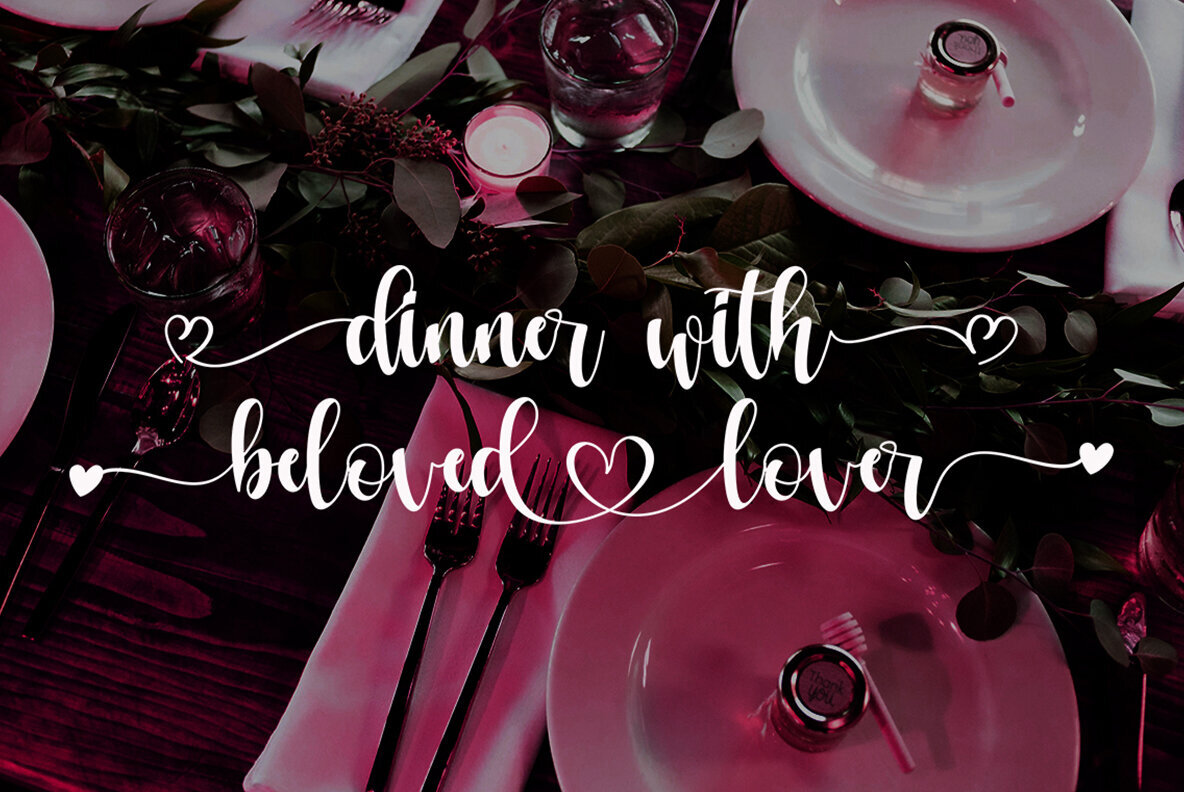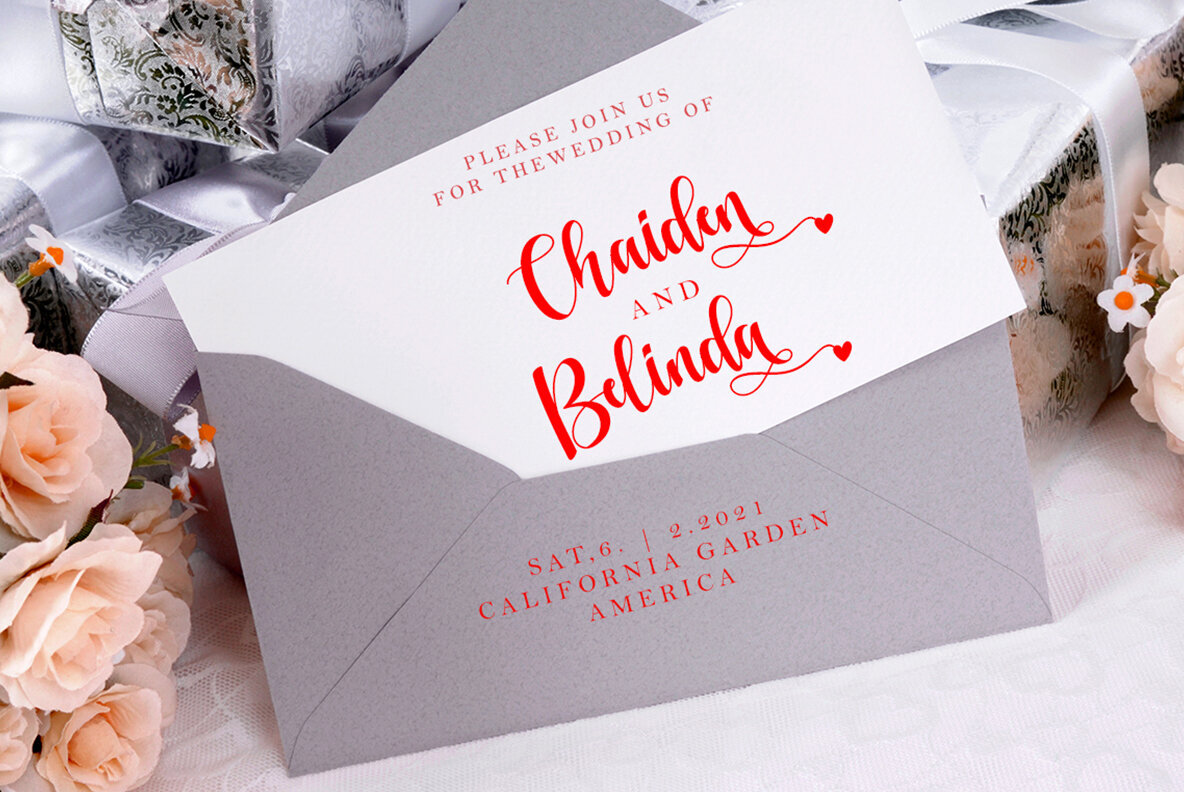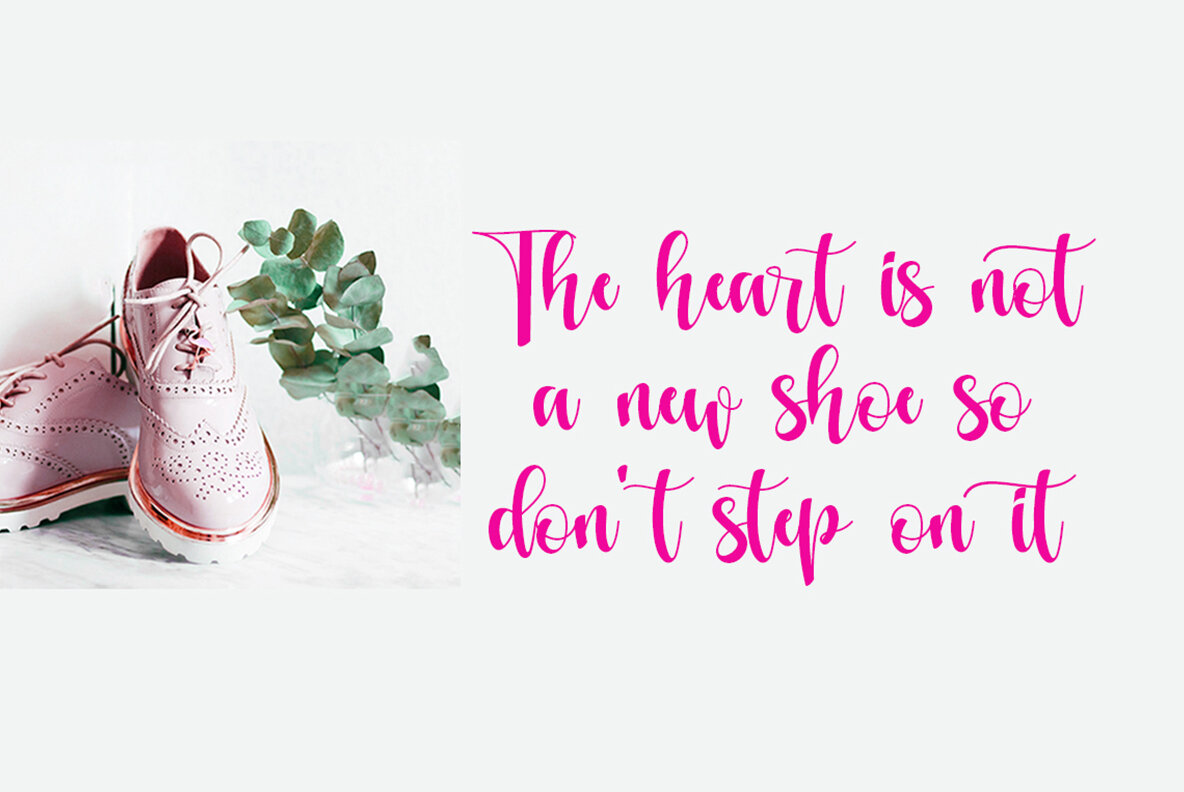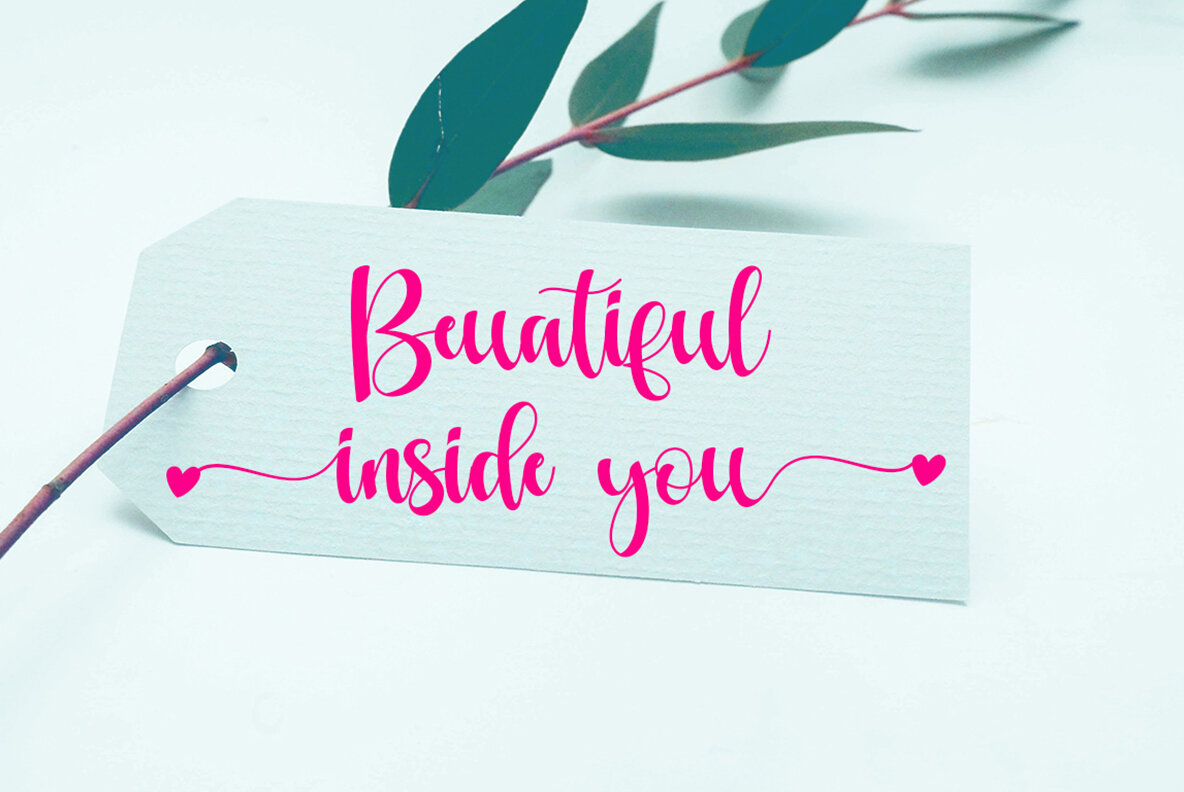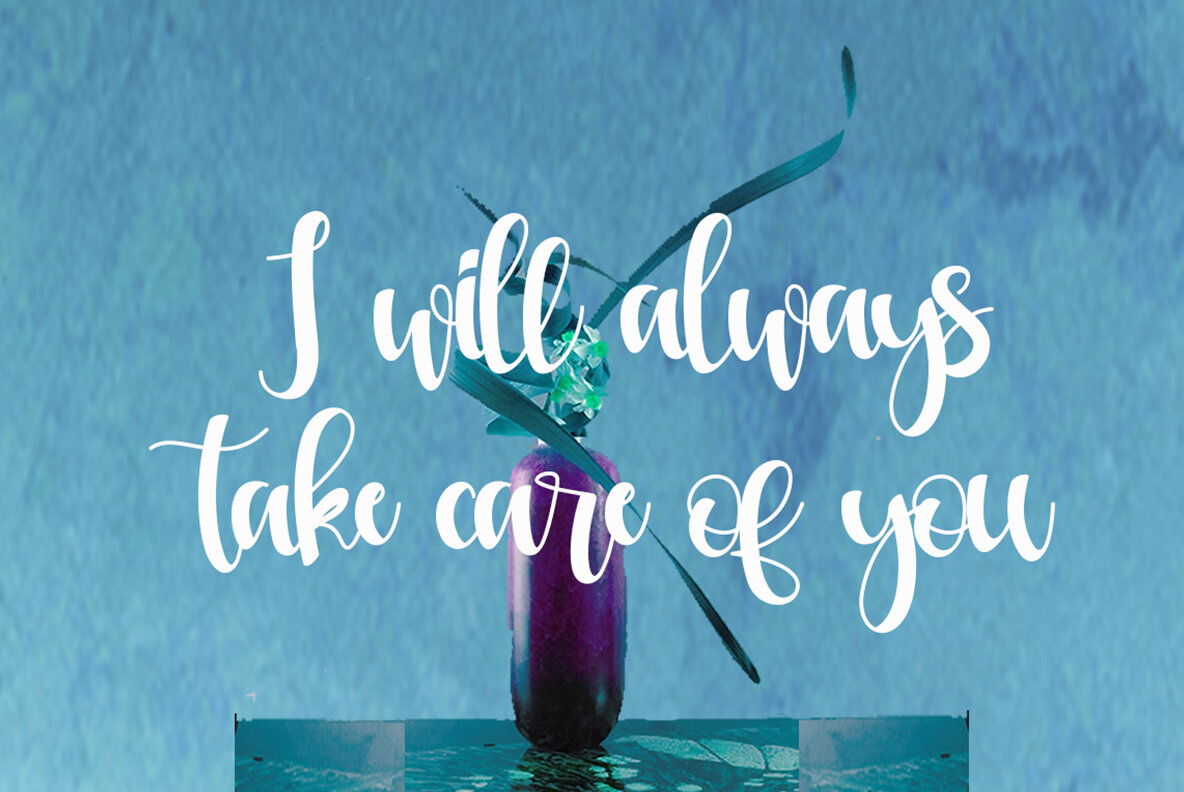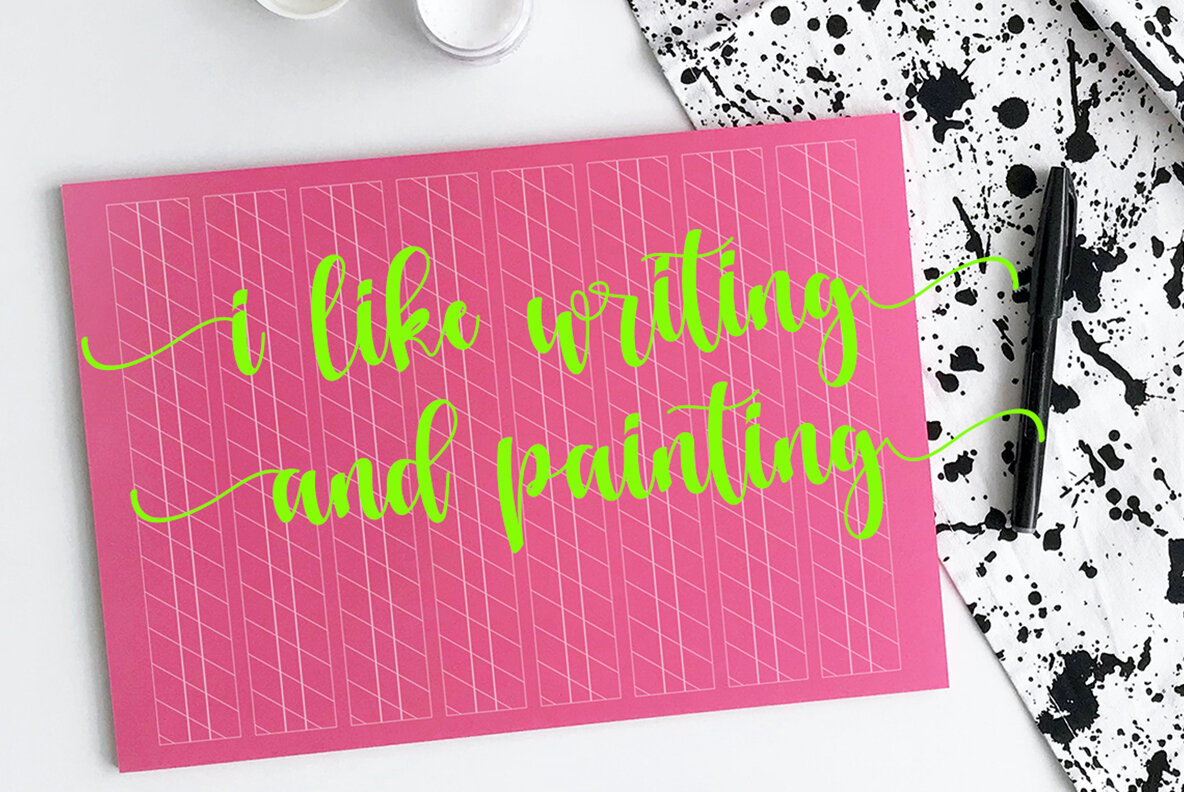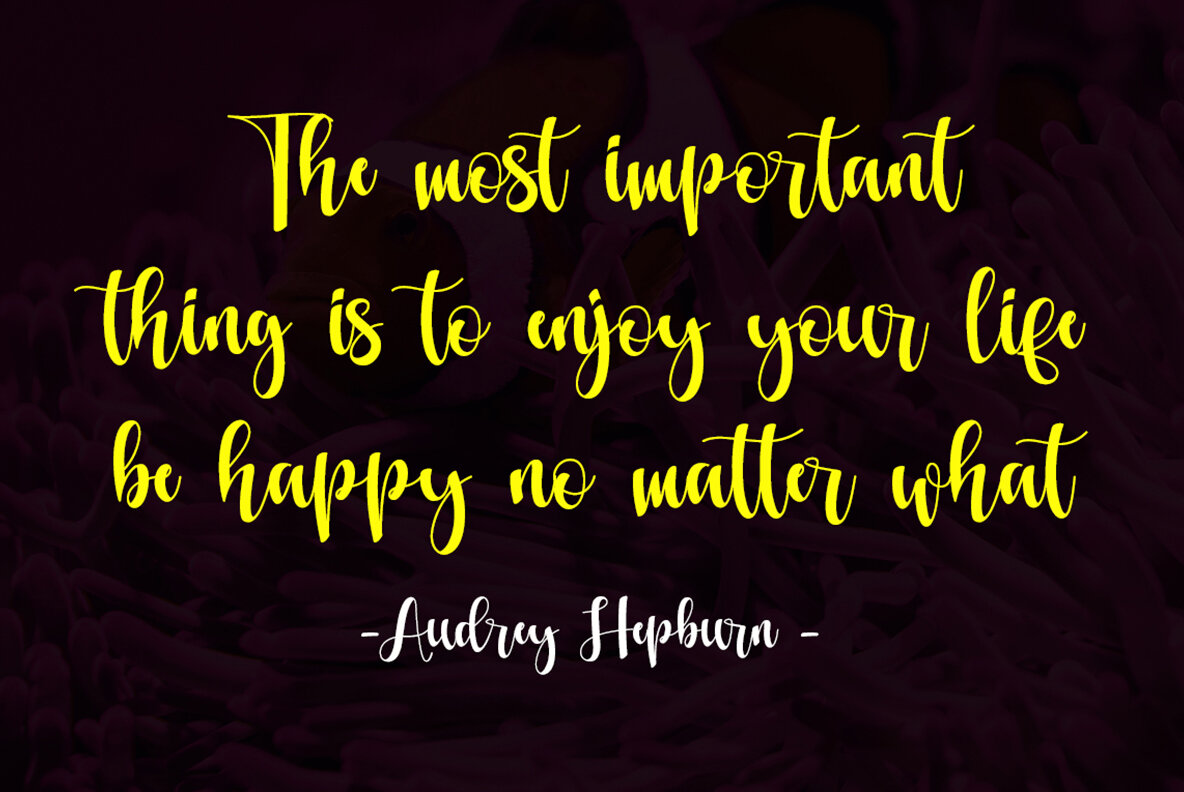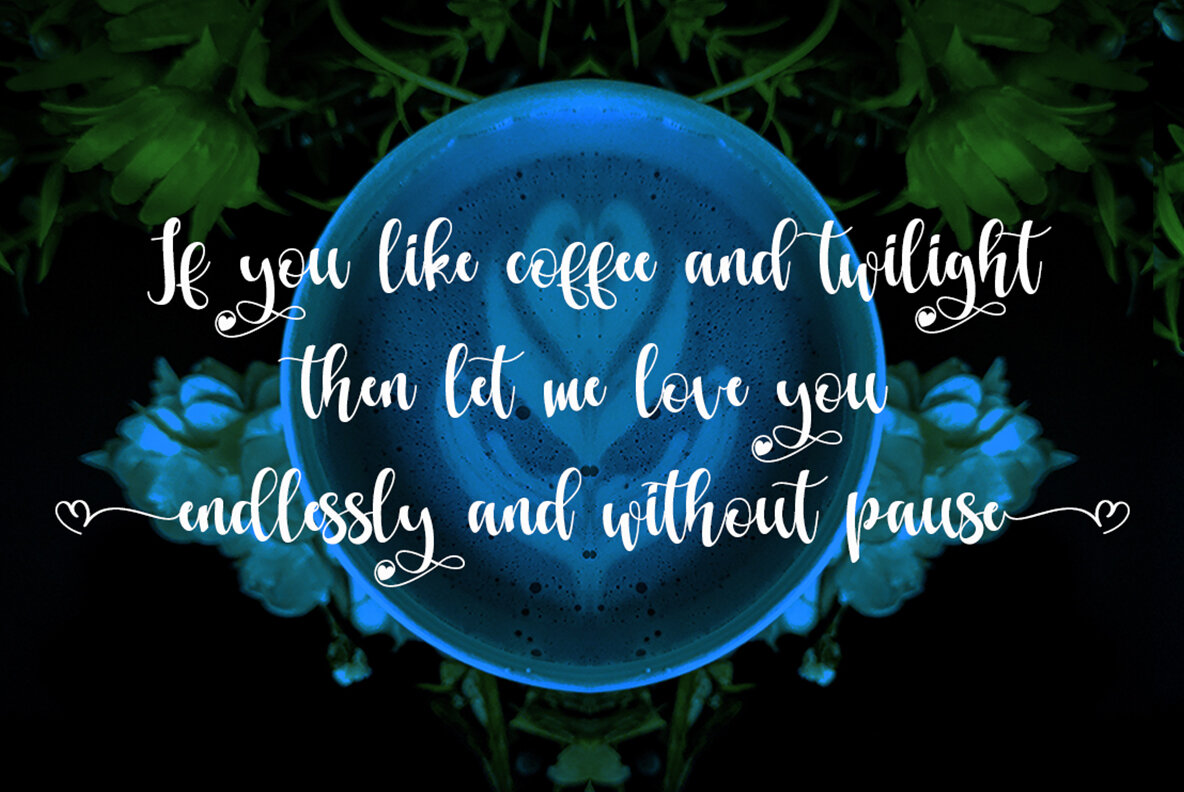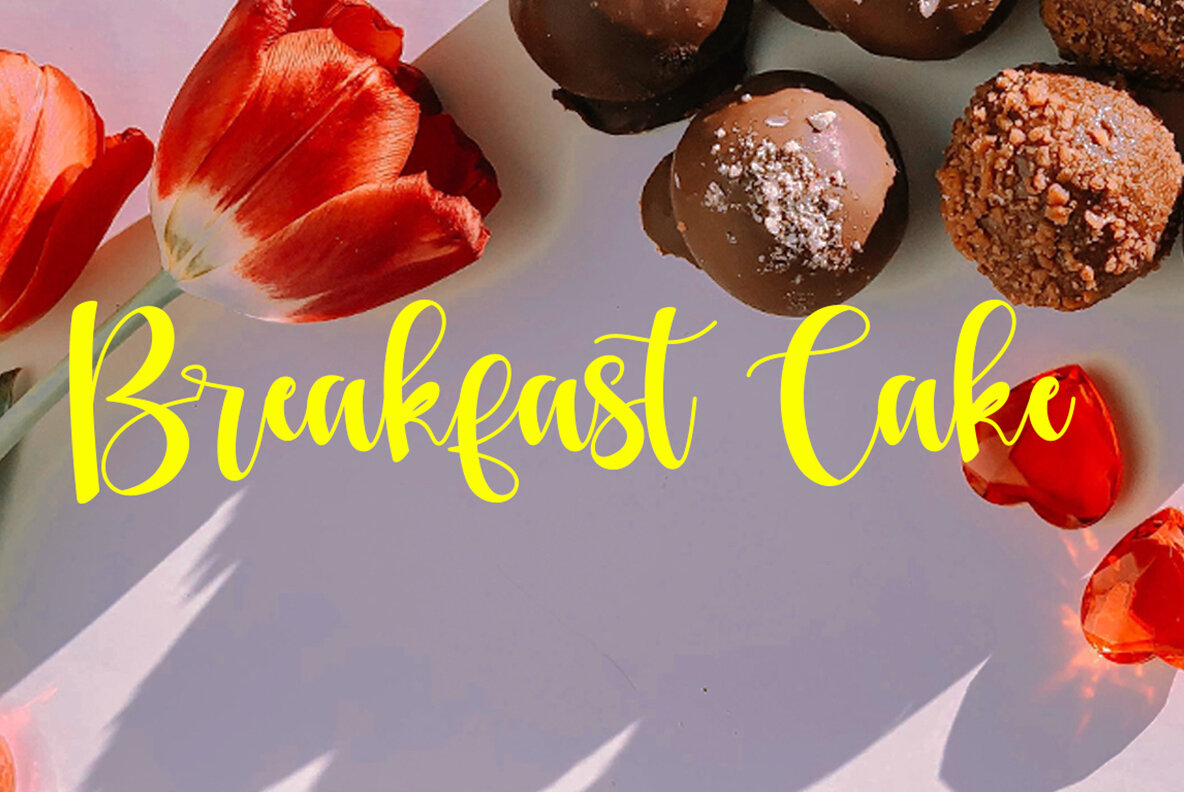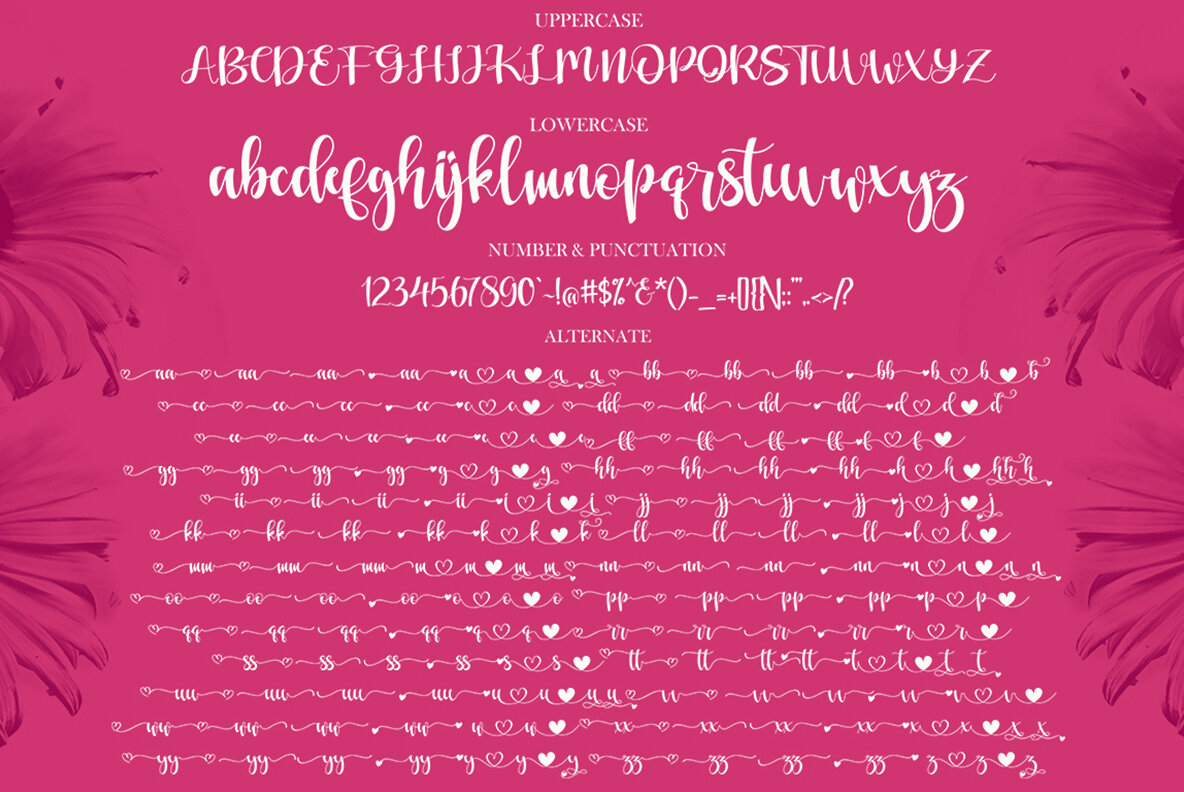
Love moment Font
Love moment
Love Moment is a charming script font, ideal for branding, wedding invitations, and other romantic projects. It requires software that supports Adobe Illustrator CS, Adobe InDesign, CorelDraw X6-X7, or Microsoft Word 2010 and later versions.Love Moment: Romantic Script for Elegant Designs